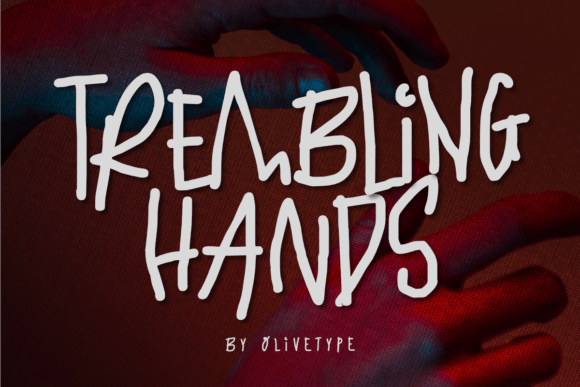
Trembling Hands Font: Adding a Touch of Hand-Drawn Beauty to Your Designs
In the world of typography, fonts play a crucial role in conveying the tone and personality of a brand or design. With the vast array of fonts available, it can be challenging to find one that stands out from the rest. However, if you’re looking for a font that captures the essence of hand-drawn beauty, look no further than Trembling Hands Font. With its flowing strokes and natural-looking letterforms, Trembling Hands is a unique and charming font that adds an artistic flair to any design.
What is Trembling Hands Font?
Trembling Hands Font is a beautifully crafted font that mimics the imperfections of hand-drawn letters. Each character has a slightly wobbly touch, giving it a charming imperfection that sets it apart from other fonts. The font’s flowing strokes and natural-looking letterforms make it perfect for creating headlines, logos, and branding materials that require a personal touch.
The font’s unique characteristics make it an excellent choice for designers who want to add a touch of personality to their work. Whether you’re creating a logo, brochure, or website, Trembling Hands Font is sure to grab attention and leave a lasting impression.
Key Features of Trembling Hands Font
- Hand-drawn look: Trembling Hands Font has a unique, hand-drawn look that sets it apart from other fonts.
- Flowing strokes: The font’s flowing strokes give it a natural, organic feel that’s perfect for creating headings and titles.
- Natural-looking letterforms: Each character has a natural, imperfect look that’s reminiscent of hand-drawn letters.
- Charming imperfections: The font’s slightly wobbly touch gives it a charming imperfection that’s sure to grab attention.
Ideas for Using Trembling Hands Font
Trembling Hands Font is a versatile font that can be used in a variety of design projects. Here are some ideas to get you started:
- Headings and titles: Use Trembling Hands Font to create eye-catching headings and titles that add a touch of personality to your designs.
- Logos and branding: The font’s unique look makes it perfect for creating logos and branding materials that require a personal touch.
- Posters and flyers: Add a touch of hand-drawn beauty to your posters and flyers with Trembling Hands Font.
- Web design: Use the font to create headings and titles for your website that add a touch of personality to your design.
Benefits of Using Trembling Hands Font
There are many benefits to using Trembling Hands Font in your designs. Here are a few:
- Unique look: The font’s unique, hand-drawn look sets it apart from other fonts and adds a touch of personality to your designs.
- Attention-grabbing: The font’s charming imperfections and flowing strokes make it sure to grab attention and leave a lasting impression.
- Versatile: Trembling Hands Font can be used in a variety of design projects, from headings and titles to logos and branding materials.
- Easy to read: Despite its hand-drawn look, Trembling Hands Font is easy to read and understand, making it perfect for use in body text and other applications.
Tips for Using Trembling Hands Font
Here are a few tips for using Trembling Hands Font in your designs:
- Use it sparingly: While Trembling Hands Font is a beautiful font, it can be overwhelming if used too much. Use it sparingly to add a touch of personality to your designs.
- Pair it with other fonts: Trembling Hands Font pairs well with other fonts, such as sans-serif fonts. Experiment with different pairings to find the one that works best for your design.
- Adjust the size: The font’s size can greatly affect its impact. Experiment with different sizes to find the one that works best for your design.
In conclusion, Trembling Hands Font is a unique and charming font that adds an artistic flair to any design. With its flowing strokes and natural-looking letterforms, it’s perfect for creating headings, logos, and branding materials that require a personal touch. Whether you’re a designer or a DIY enthusiast, Trembling Hands Font is a great choice for anyone looking to add a touch of hand-drawn beauty to their work.